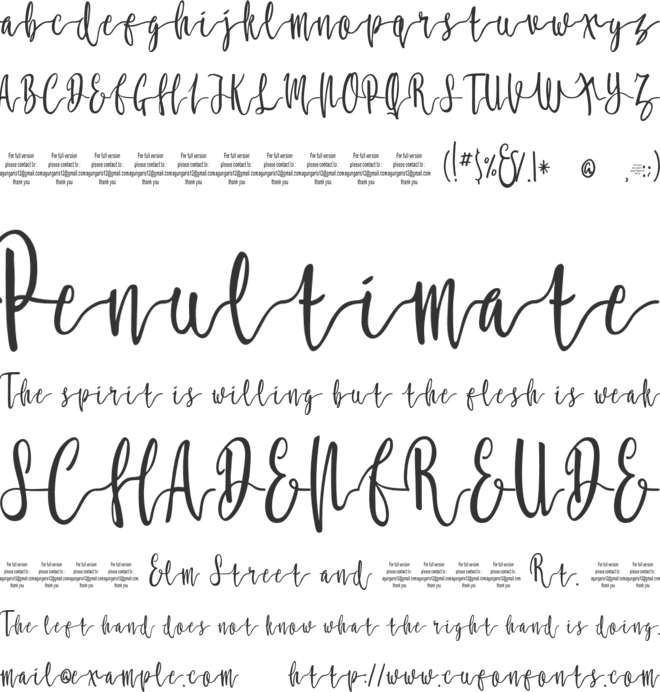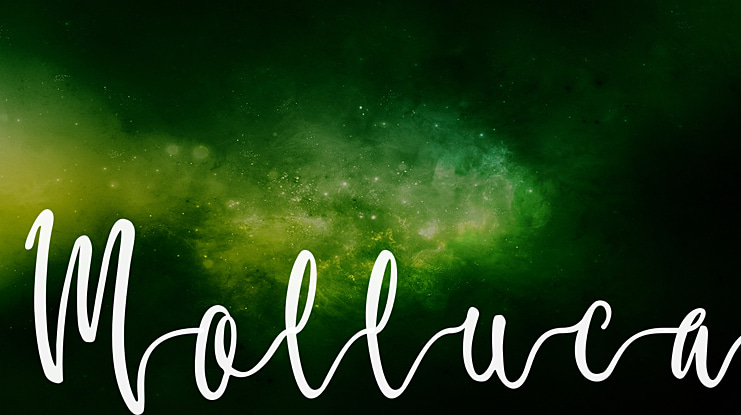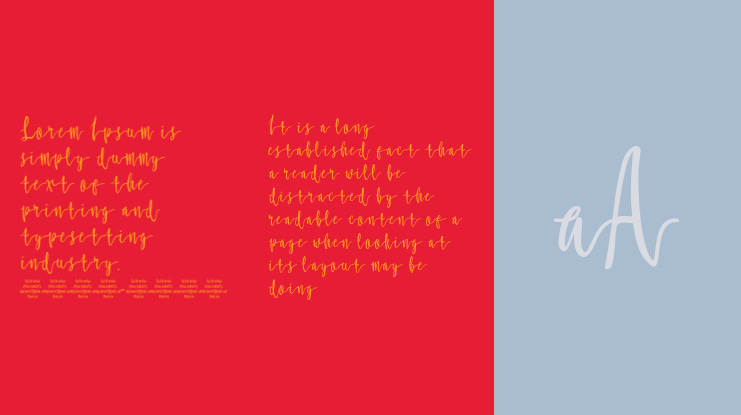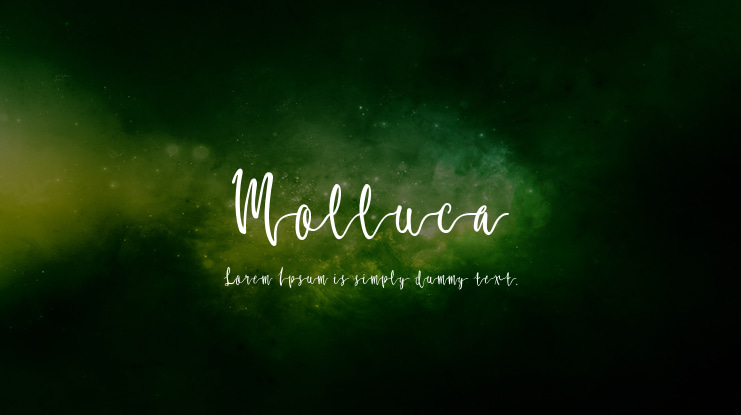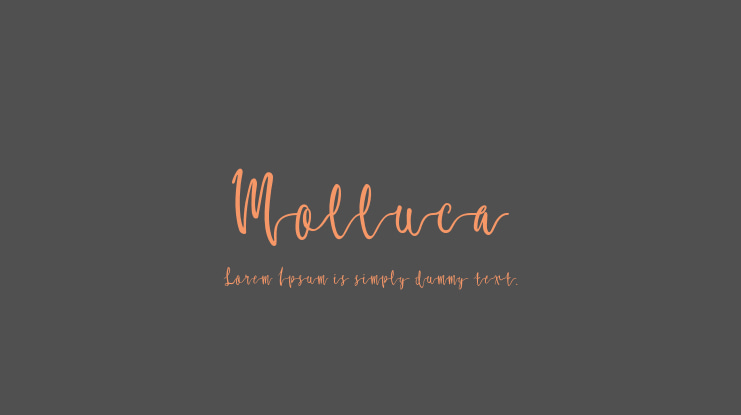
Molluca Font Family
Molluca brings a wider concept of handwriting between letters. Letters more clearly and gives a more beautiful impression.
Molluca font preview
Molluca Regular font
Molluca Italic font